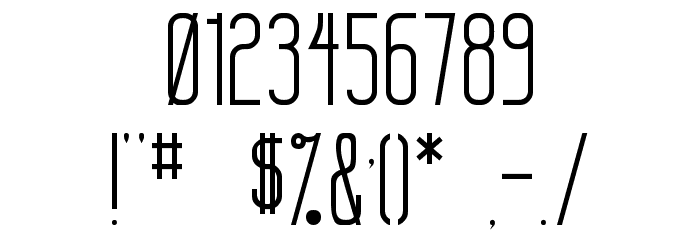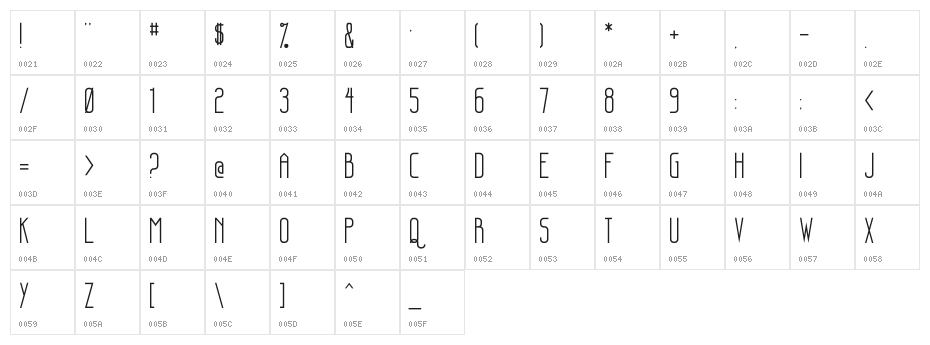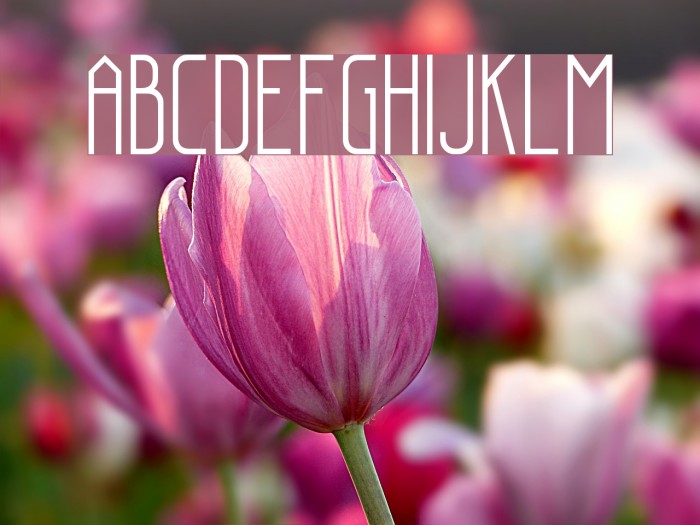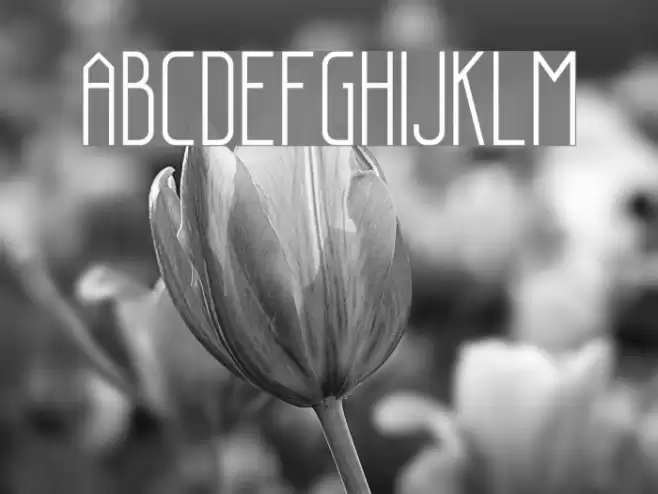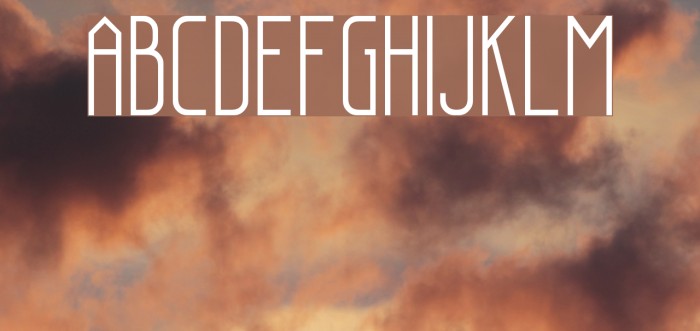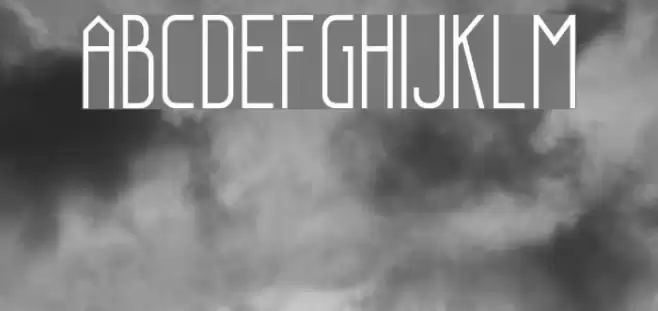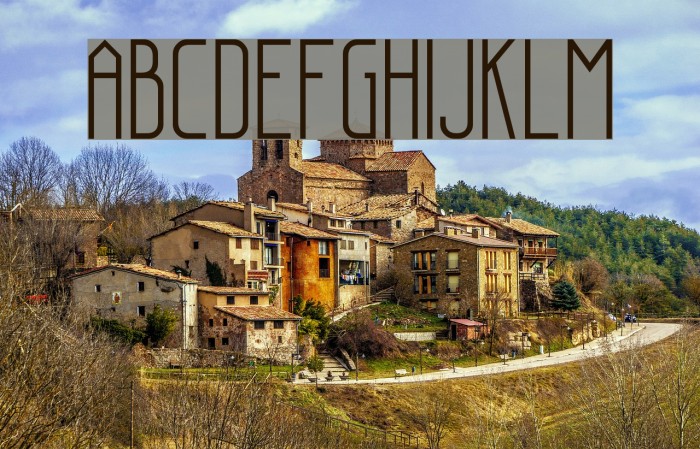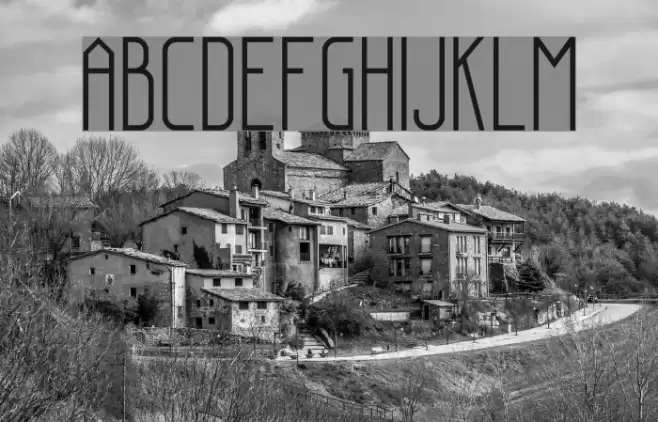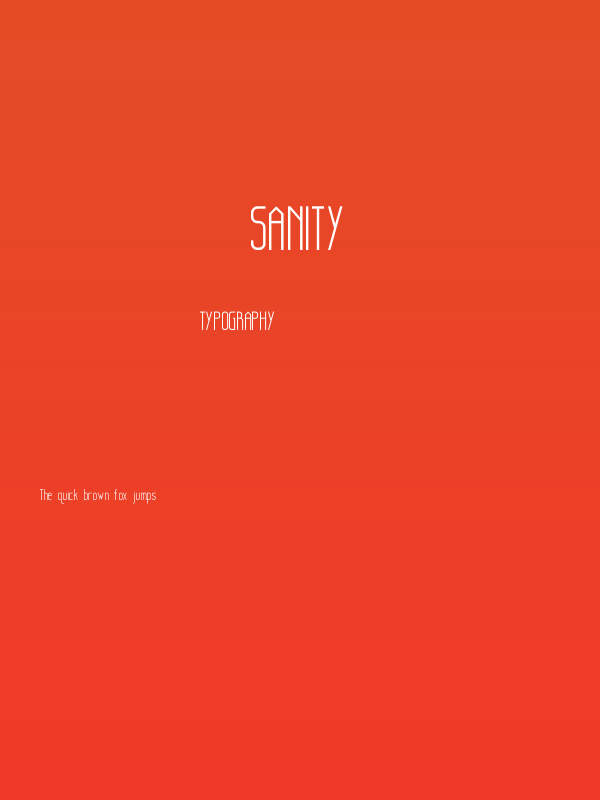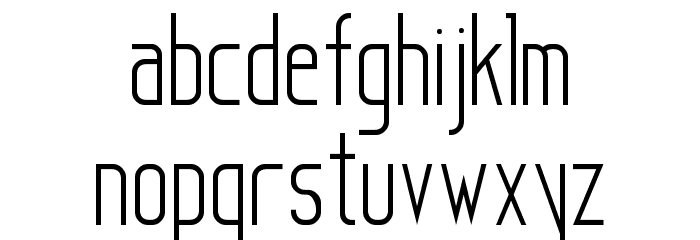
Sanity Font
Sanity Description
This font features a modern and sleek design with tall, narrow characters that convey a sense of elegance and sophistication. The uppercase letters are uniform in height, with sharp angles and clean lines, giving them a contemporary feel. The lowercase letters maintain a consistent style, with rounded edges that soften the overall appearance. The numerals are distinct and easy to read, matching the font's overall aesthetic. Special characters are well-integrated, maintaining the font's cohesive look. This font's unique style makes it suitable for a variety of design projects.